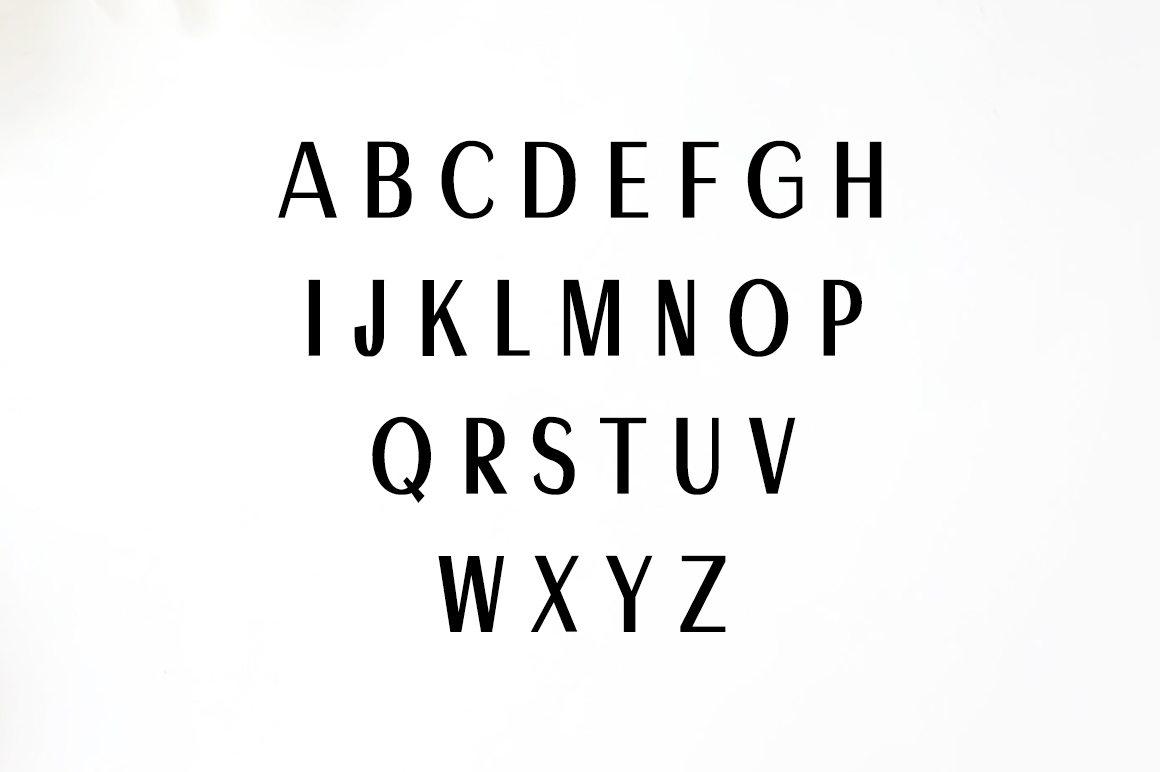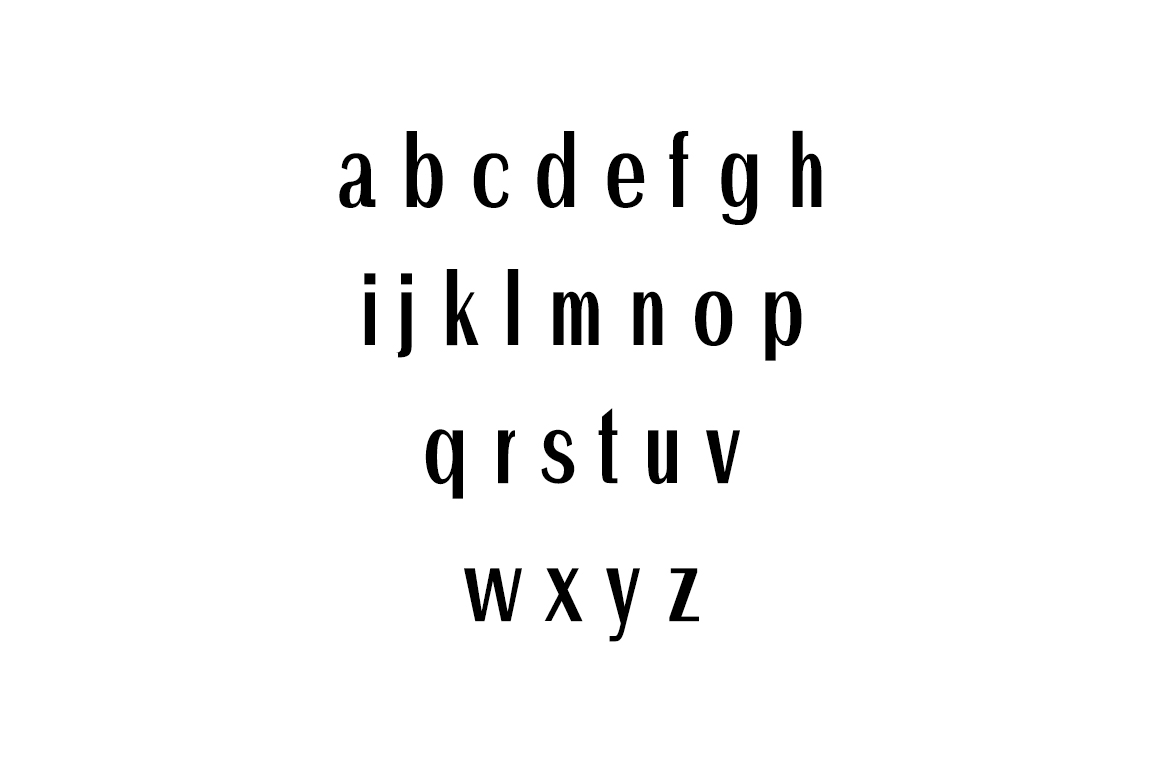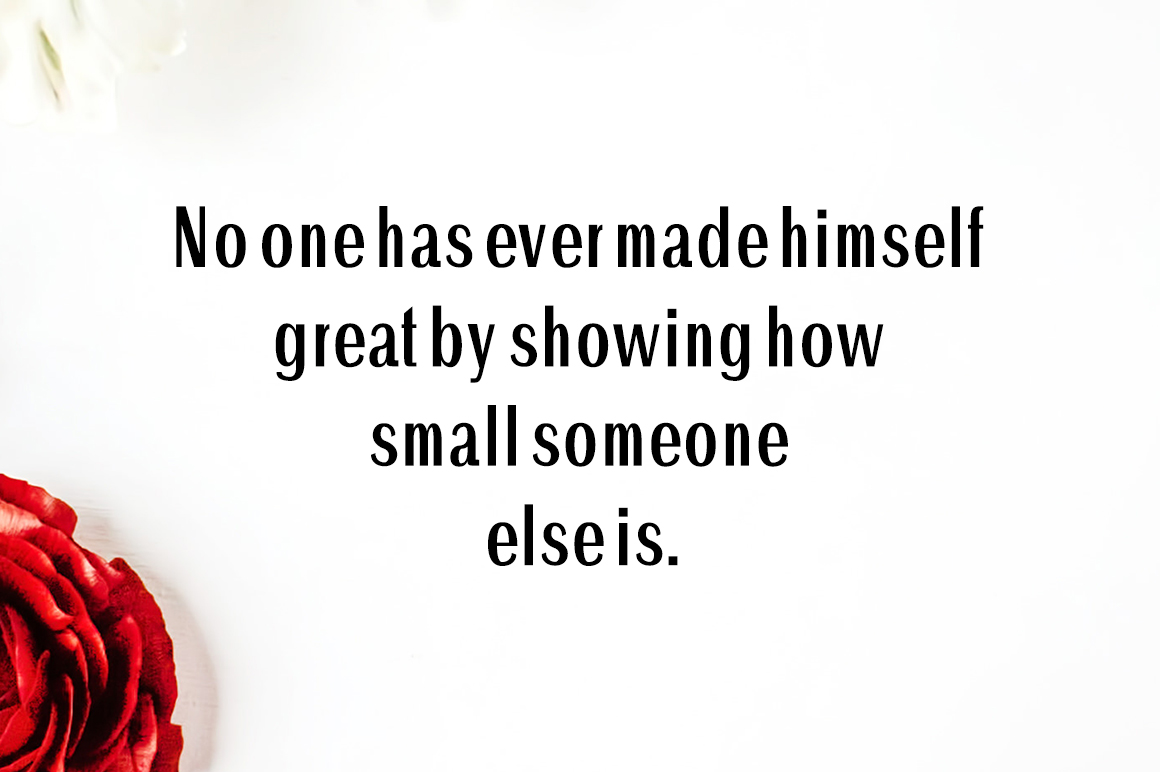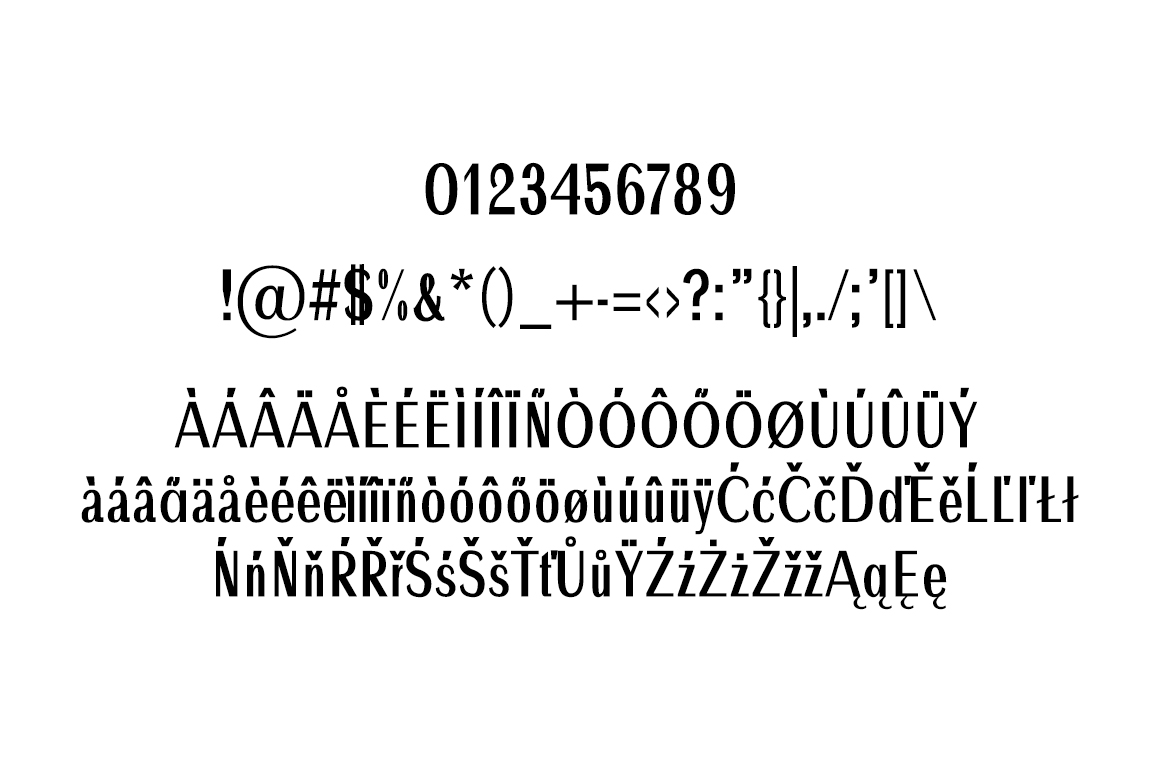
The Perfect Display Font: Unlocking Creativity with Ackley Font
Have you ever stared at a blank page, wondering what font would perfectly capture the essence of your design? The struggle is real, but the solution is within reach. For designers seeking a bold and beautiful sans serif font to elevate their displays, we’ve got just the thing: Ackley Font.
Ackley Font is a contemporary typeface that’s as versatile as it is stunning. Its clean lines, geometric shapes, and modern feel make it an ideal choice for a wide range of applications, from advertising and branding to editorial and digital design. With Ackley Font, you’ll have the freedom to experiment and push the boundaries of your creativity.
Ackley Font Key Features
- Font Family: Ackley is a sans-serif font family designed for digital use.
- Unique Characteristics: Ackley features a clean, modern design with a focus on readability and legibility, making it suitable for digital applications such as web design, mobile apps, and e-books.
Ackley Font Review
As a designer, I was excited to try out the Ackley font. Here’s my honest review.
- Unique and elegant design: Ackley has a distinctive look that sets it apart from more common fonts. It’s perfect for adding a touch of sophistication to your designs.
- Good legibility: The font is easy to read, even at smaller font sizes, making it a great choice for body text or captions.
- Variety of weights: Ackley comes in multiple weights, from light to bold, giving you flexibility to choose the right style for your design.
- Not ideal for bold headings: While Ackley has a bold weight, it’s not the best choice for large, attention-grabbing headings. The font can feel a bit too delicate for that purpose.
- May not work well for very long text: The font’s unique design can make it feel a bit too busy when used for long blocks of text. It’s best used in moderation.
Ackley is a beautiful font that’s perfect for adding a touch of elegance to your designs. While it has some limitations, it’s a great choice for body text, captions, and other smaller elements. With its unique design and good legibility, Ackley is definitely worth considering for your next design project.
Tips for Getting the Most Out of Ackley Font
For best results, use Ackley font in conjunction with bold or italic styles to create a visually appealing contrast.
Ackley font works well for headings, titles, and short paragraphs of text.
Ackley font is suitable for:
Food and beverage branding
Travel and adventure branding
Wedding and event invitations